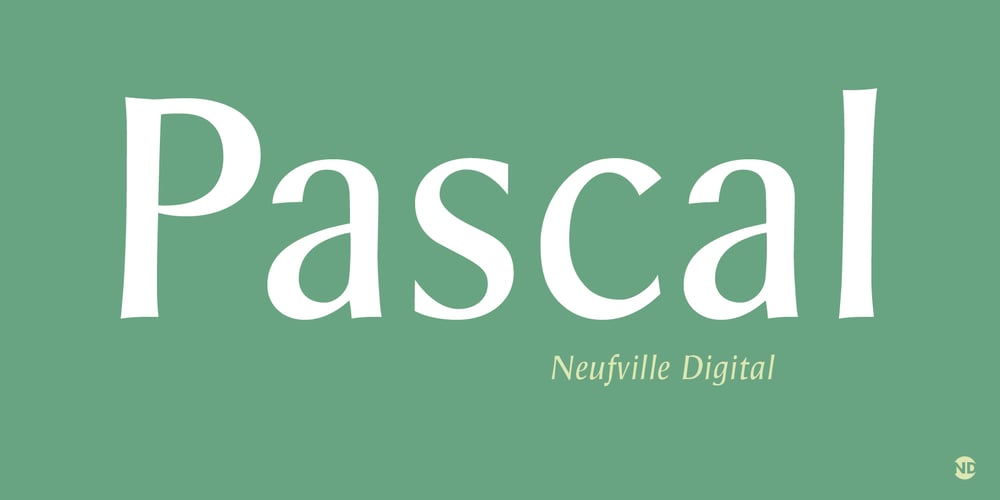
Pascal ND
Pascal ND font
Pascal ND Font Family was designed by José Mendoza y Almeida and published by Neufville Digital. Pascal ND contains 2 styles and family package options. Pascal is a typeface designed in 1953 by José Mendoza y Almeida, inspired by an alphabet created by his father for engraving. It is an elegant and classic typeface. Its use is optimal for use in short texts, headlines and covers.Pascal is a Trademark of BauerTypes SL